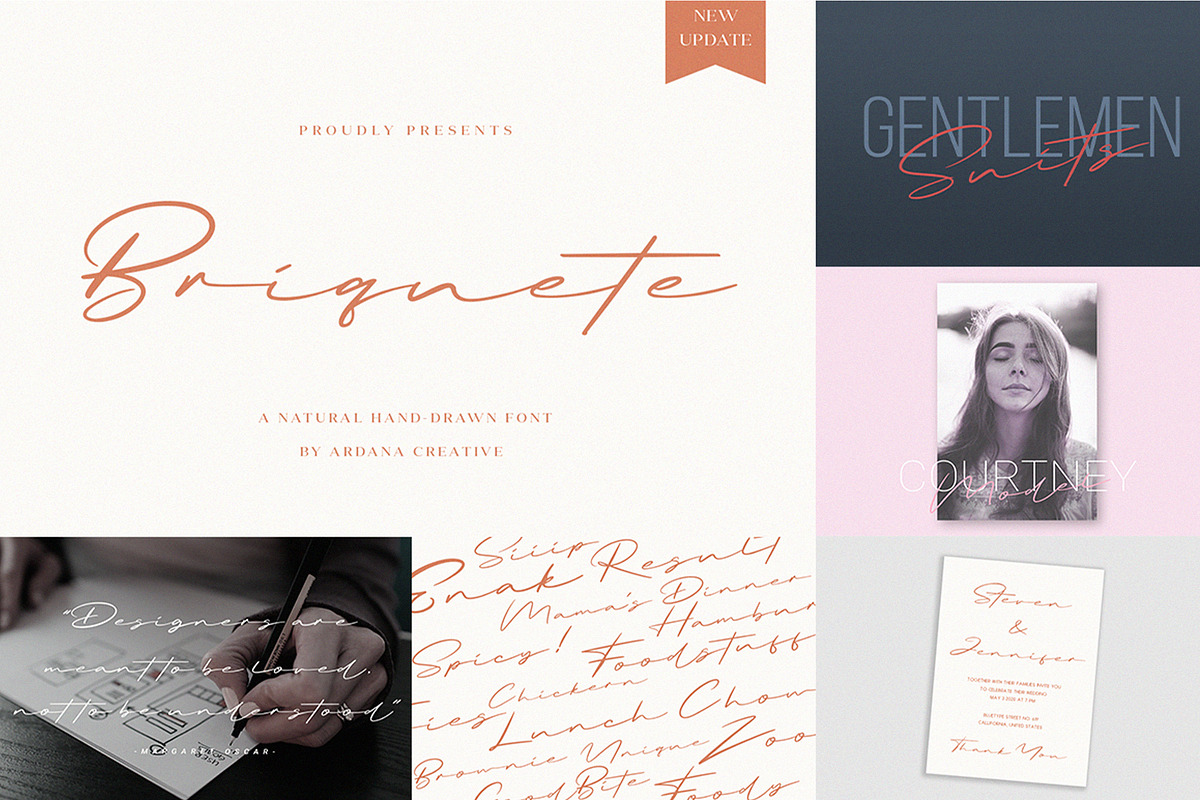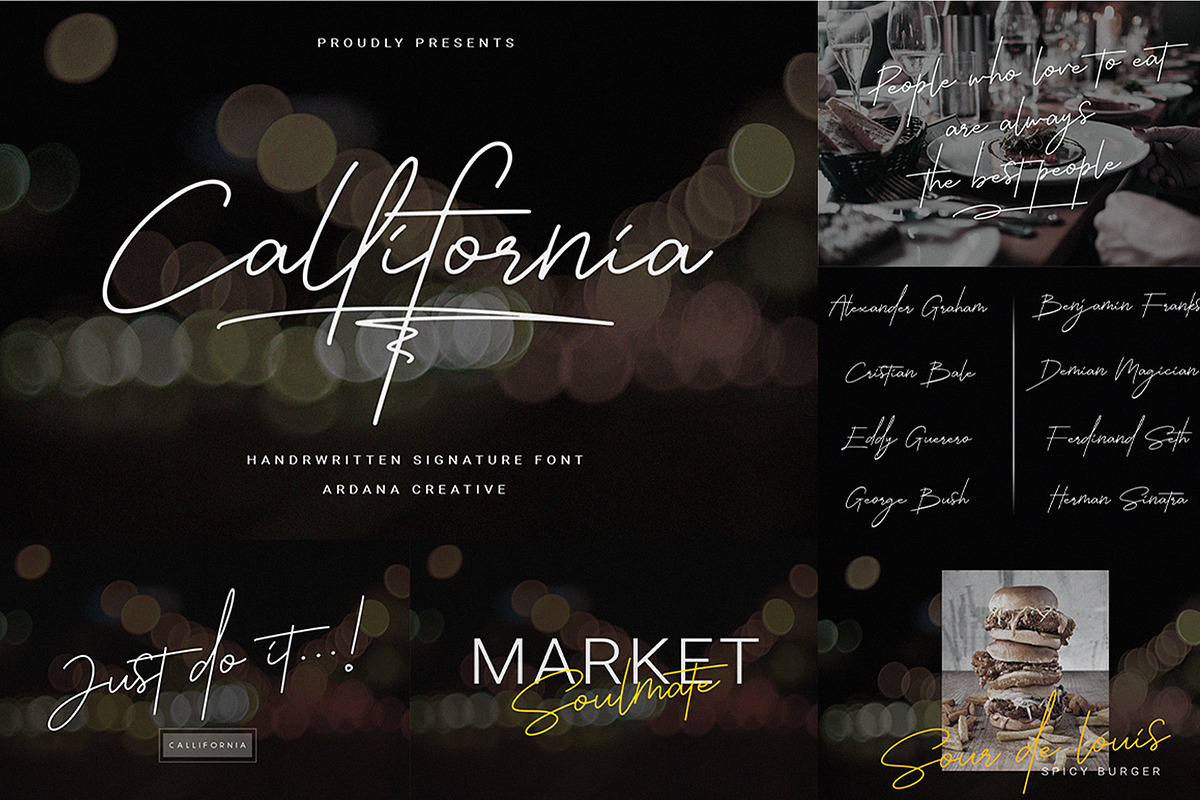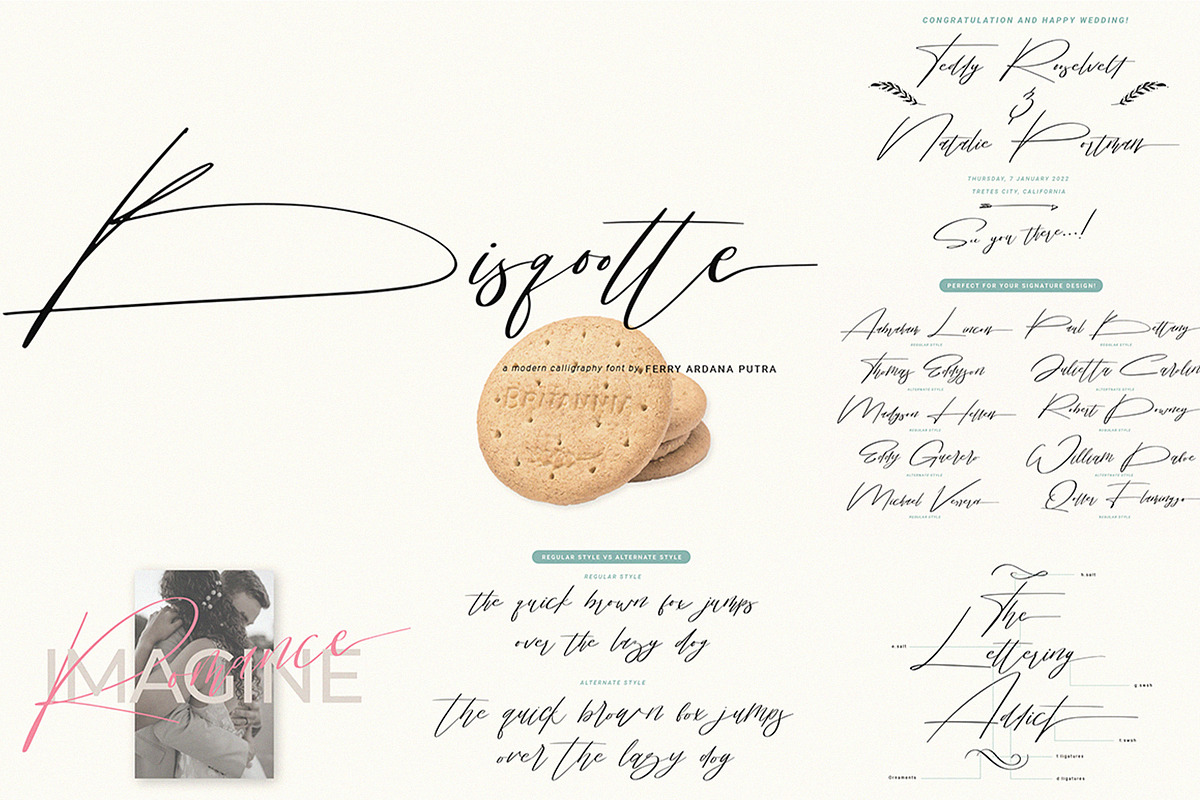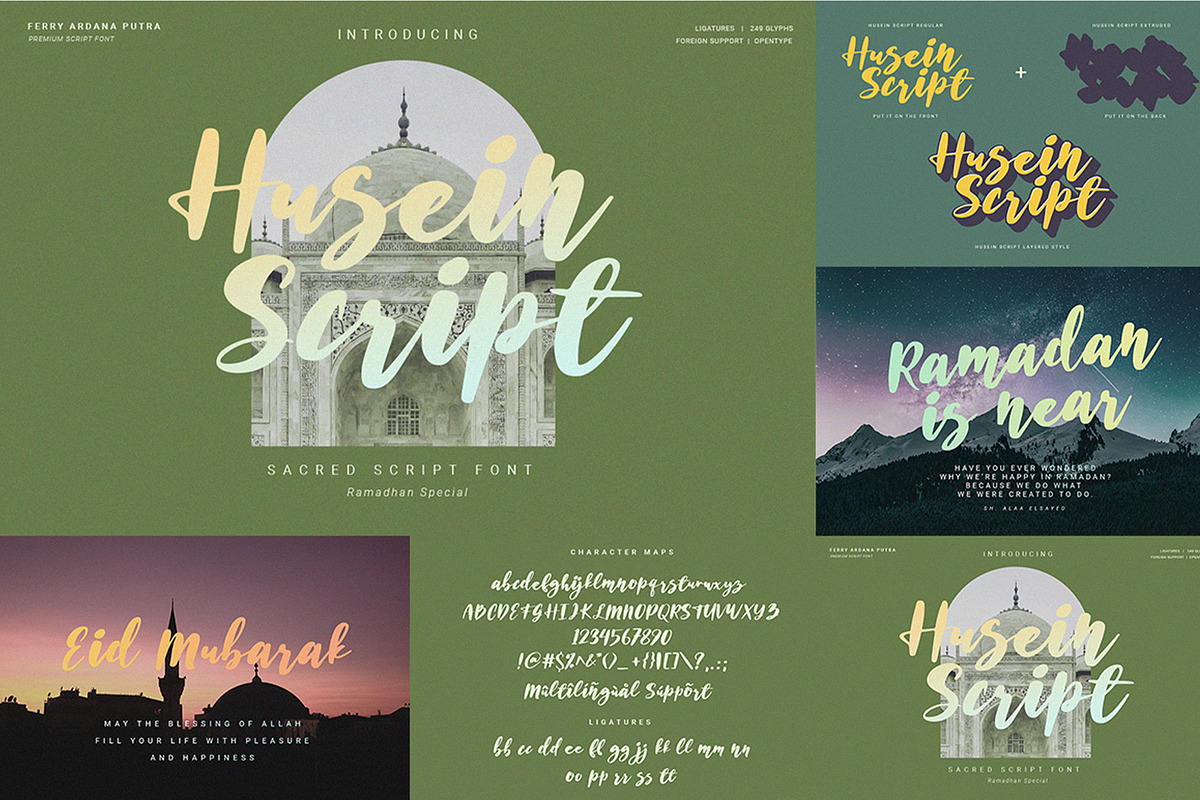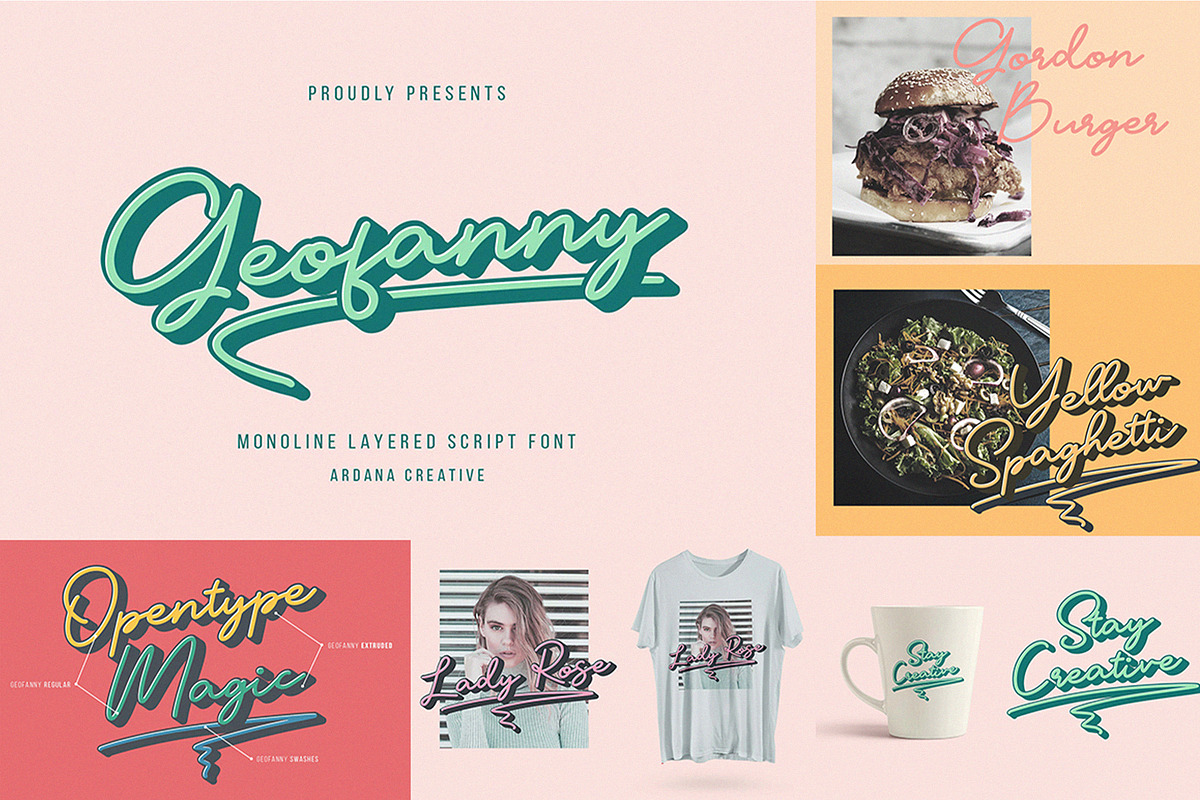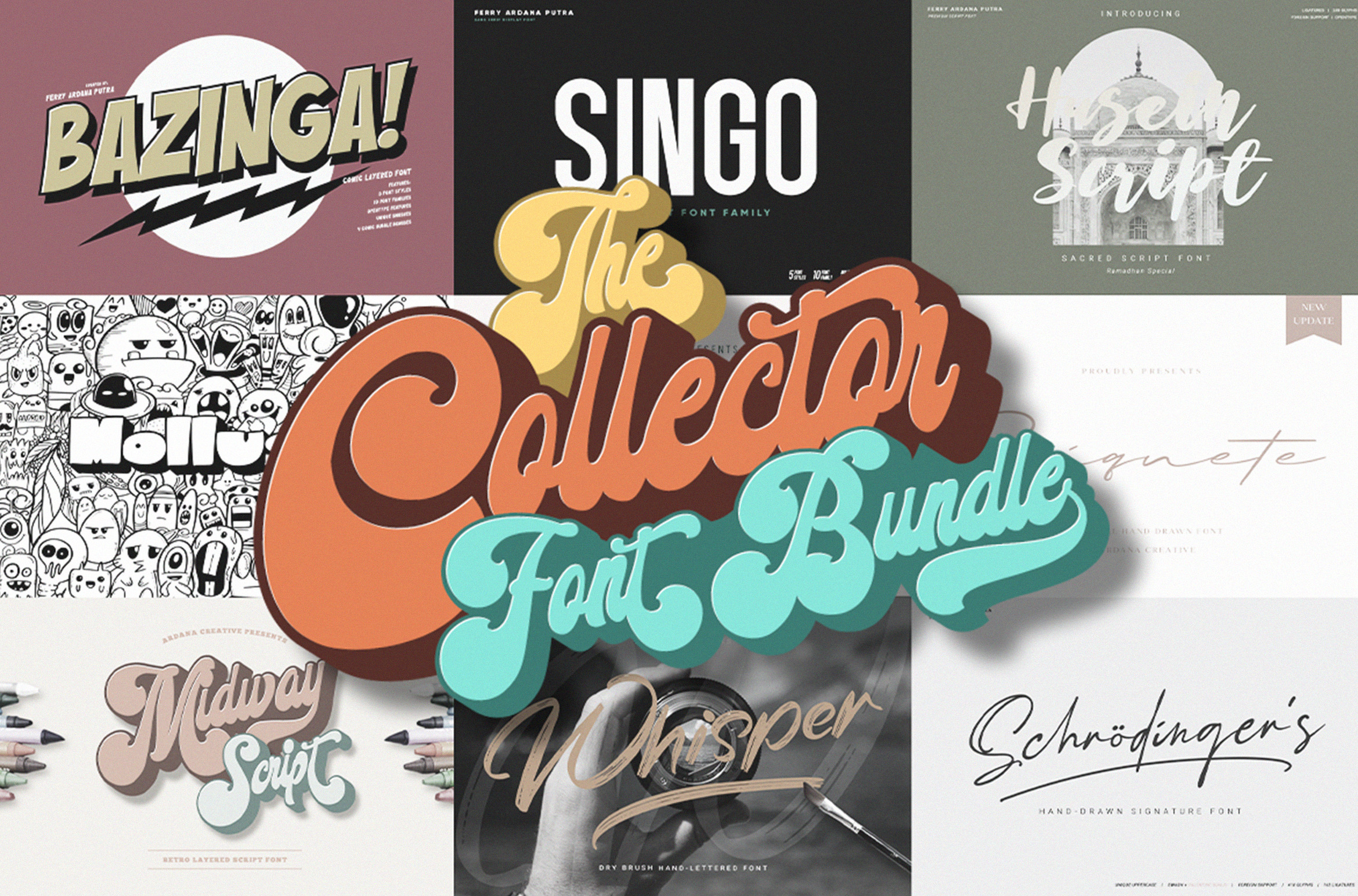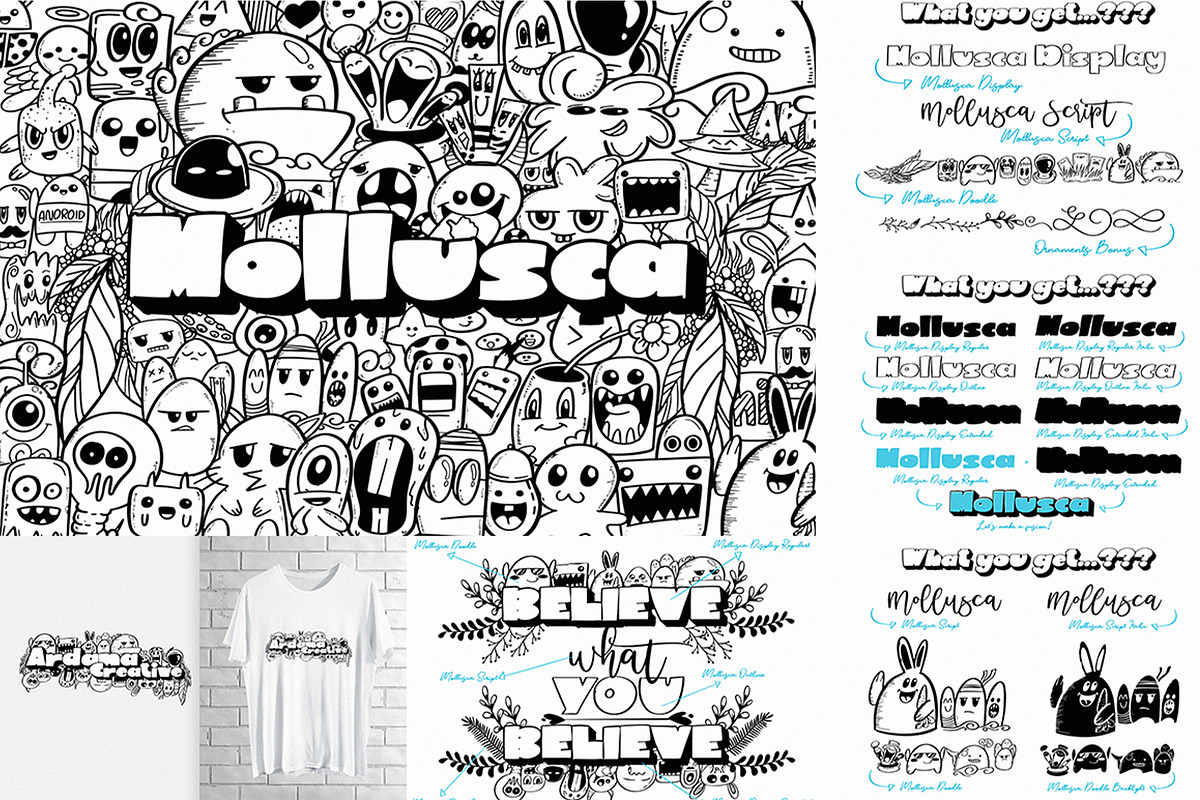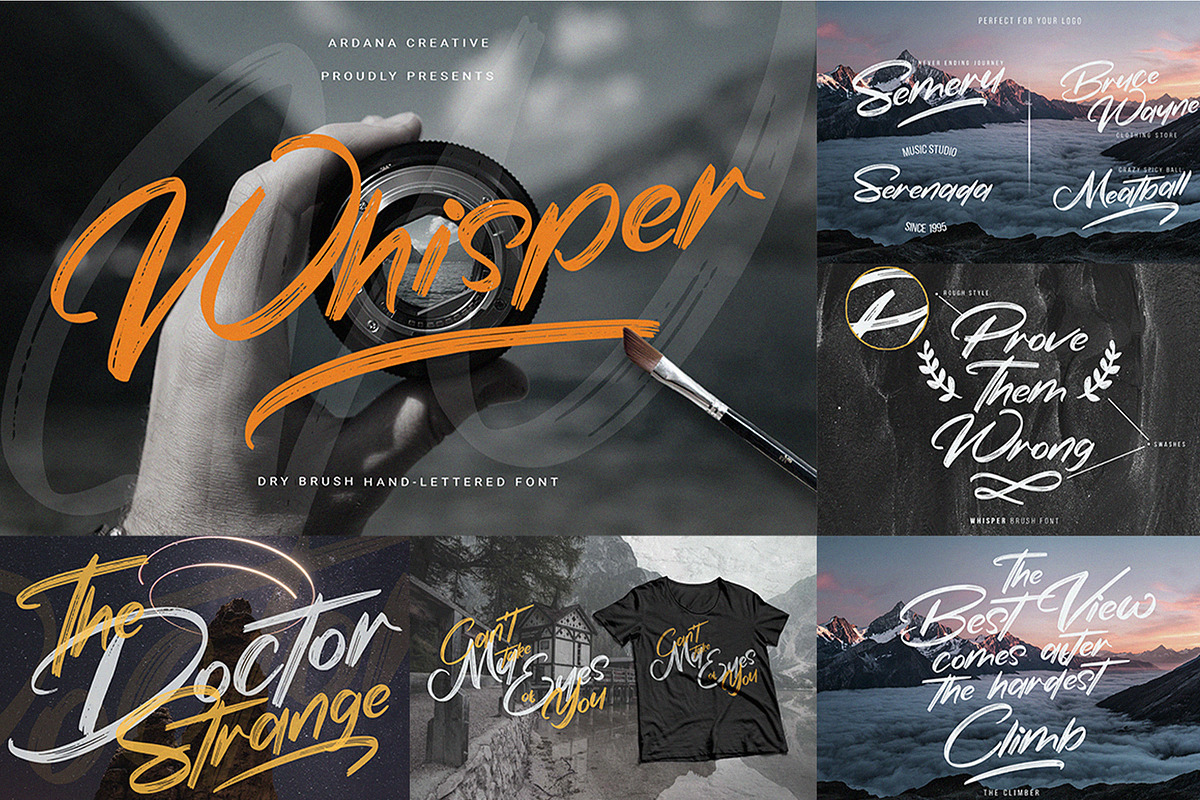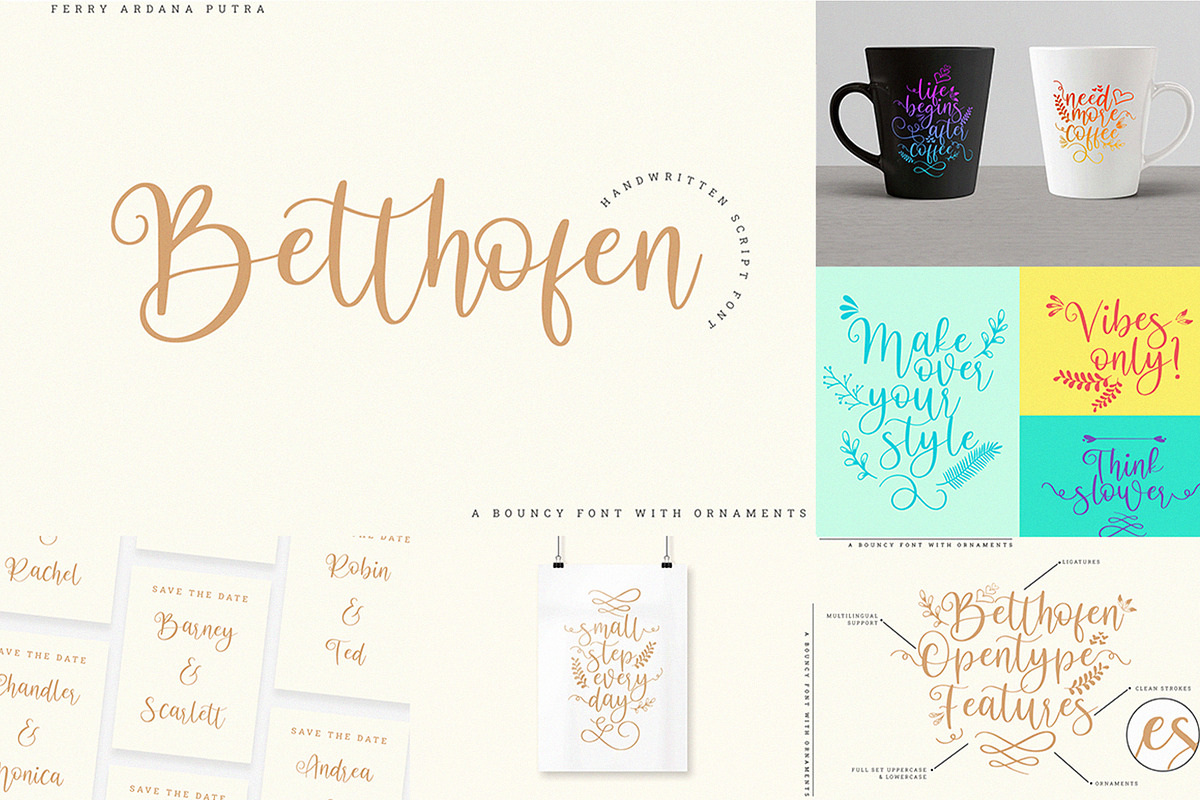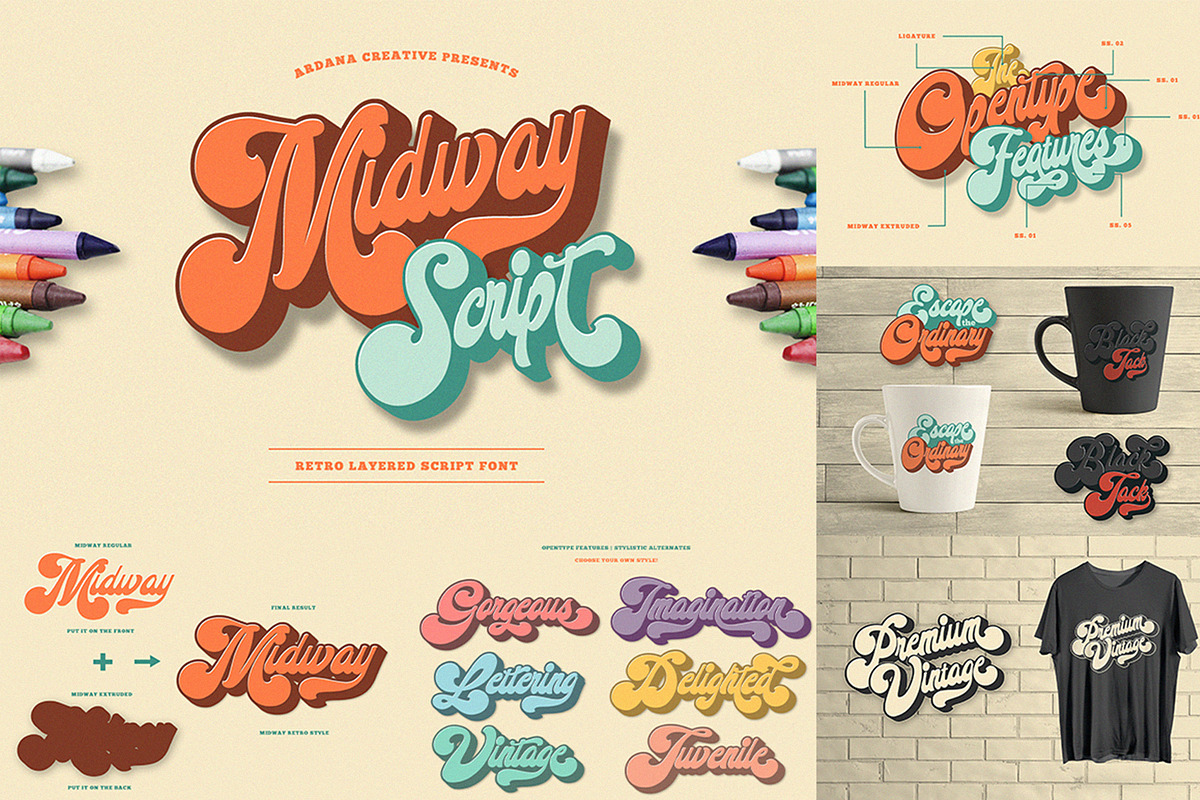
The Collector | Layered Font Bundle
Product Includes:
- Midway | Retro Script Font: https://crmrkt.com/arx22N
- Mollusca Font Trio | Doodle Font: https://crmrkt.com/7dl44r
- Geofanny | Monoline Layered Script Font: https://crmrkt.com/g0eDDJ
- Husein Script | Handwritten Ramadan Font: https://crmrkt.com/xE4qqK
- Buzinga! | Comic Layered Font: https://crmrkt.com/jvPMM1
- Singo | Sans Display Font: https://crmrkt.com/God775
- Callifornia | Handwritten Signature Font: https://crmrkt.com/2d6OOz
- Schrƶdinger's | Signature Font: https://crmrkt.com/Qx0RRD
- Briquete | Natural Brush Font: https://crmrkt.com/4dg771
- Juliette | Signature Font: https://crmrkt.com/6dPww8
- Whisper | Natural Dry Brush Font: https://crmrkt.com/yojvvm
- Bisqootte | Modern Calligraphy Font: https://crmrkt.com/BOrBBq
- Betthofen | Handwriting Bouncy Script font: https://crmrkt.com/OlmQQ6